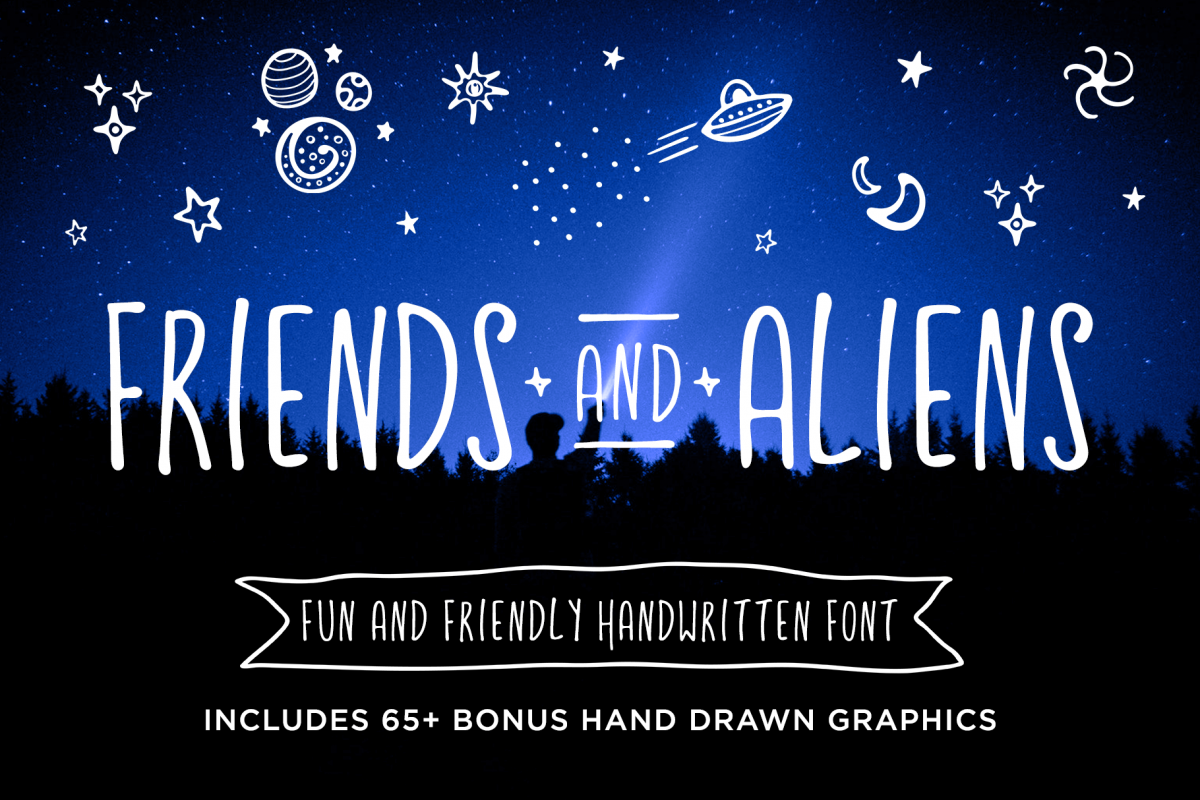
Friends & Aliens Font
Friends and Aliens
Introducing FRIENDS & ALIENS, an uppercase and lowercase handwritten font with over 65+ BONUS "Peace, Love, and Outer Space Doodles" graphic elements to alter and edit and play with as needed! Font includes uppercase, lowercase, punctuation, and numbers. This fun and friendly handwritten typeface can be used in personal and commercial projects. Some letters and punctuation and symbols include alternatives which can be accessed using glyphs in programs like Adobe Photoshop and Illustrator.